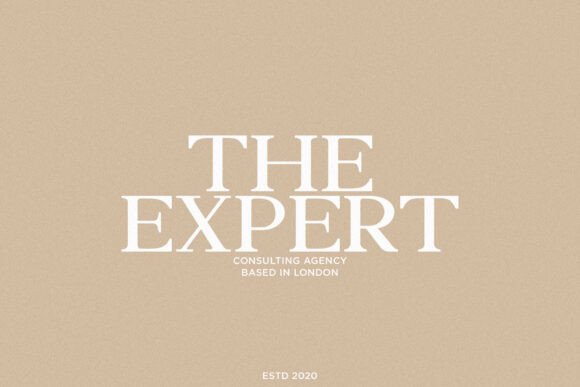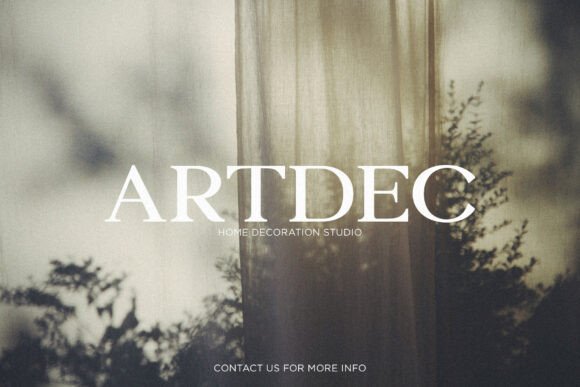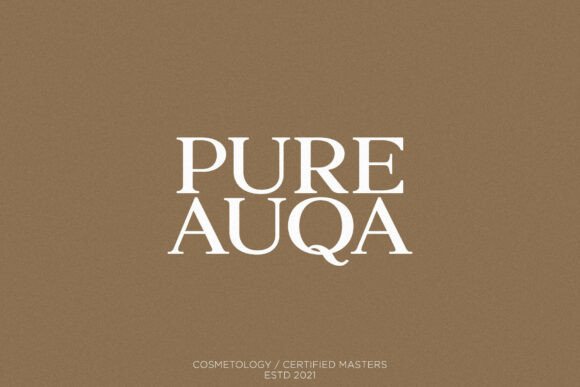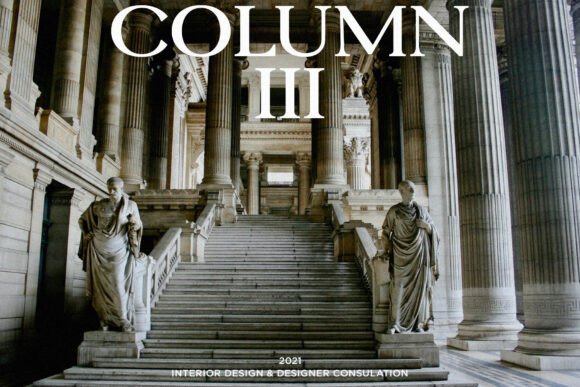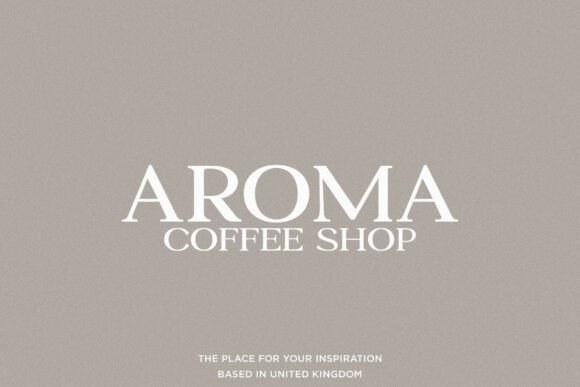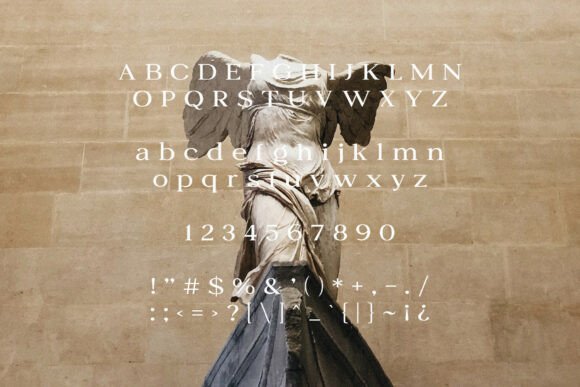
Introducing Epiphany Font: A Timeless Serif Typeface for Luxury Branding and Elegant Designs
In the world of typography, few fonts manage to convey the essence of classic elegance and timeless beauty. Epiphany Font is one such magnificent typeface that embodies the spirit of sophistication and grandeur. With its semi-expanded serif design, generous width, strong yet refined serifs, and tall letterforms, Epiphany creates a powerful sense of luxury and refinement. In this article, we’ll explore the characteristics, uses, and benefits of Epiphany Font, making it a must-have for designers and crafters seeking to elevate their projects.
Design Characteristics of Epiphany Font
Epiphany Font boasts a range of distinctive design characteristics that set it apart from other serif typefaces. Its semi-expanded design provides a sense of generosity and elegance, while the strong serifs add a touch of refinement and sophistication. The tall letterforms contribute to a sense of monumentality, making Epiphany perfect for display purposes. The font’s generous width ensures that each character takes up ample space, creating a sense of grandeur and drama.
One of the most striking features of Epiphany Font is its classic, timeless aesthetic. The font’s design is inspired by traditional serif typefaces, yet it has been carefully crafted to feel modern and fresh. This blend of old and new makes Epiphany an incredibly versatile font, suitable for a wide range of applications.
Uses for Epiphany Font
Epiphany Font is an incredibly versatile typeface, suitable for a variety of design projects. Some of the most popular uses for Epiphany include:
- Luxury Branding: Epiphany’s sophisticated, high-end aesthetic makes it perfect for luxury brands seeking to establish a sense of elegance and refinement.
- Editorial Titles: The font’s classic, timeless design makes it ideal for editorial titles, such as magazine and newspaper headlines.
- Museum Exhibits: Epiphany’s monumental, sophisticated aesthetic makes it well-suited for museum exhibits, academic papers, and other cultural institutions.
- High-End Packaging: The font’s luxurious, refined design makes it perfect for high-end packaging, such as premium cosmetics, jewelry, and fashion brands.
Benefits of Using Epiphany Font
Epiphany Font offers a range of benefits for designers and crafters seeking to elevate their projects. Some of the most significant advantages of using Epiphany include:
- Instant Sophistication: Epiphany’s classic, timeless aesthetic instantly conveys a sense of sophistication and elegance, making it perfect for luxury brands and high-end designs.
- Versatility: The font’s versatile design makes it suitable for a wide range of applications, from editorial titles to high-end packaging.
- Timeless Appeal: Epiphany’s design is carefully crafted to feel timeless, ensuring that your designs will remain fresh and relevant for years to come.
Tips for Using Epiphany Font Effectively
To get the most out of Epiphany Font, here are a few tips for using it effectively:
- Use it sparingly: Epiphany’s luxurious, refined design makes it perfect for display purposes. Use it sparingly to create a sense of drama and emphasis.
- Pair it with contrasting fonts: Epiphany’s classic aesthetic makes it a great font to pair with contrasting fonts, such as sans-serif typefaces or script fonts.
- Experiment with sizes: Epiphany’s versatile design makes it suitable for a range of sizes, from large display headings to smaller body text.
In conclusion, Epiphany Font is a magnificent, semi-expanded serif typeface that exudes classic elegance and timeless architectural beauty. Its generous width, strong yet refined serifs, and tall letterforms create a powerful sense of sophistication and grandeur, making it perfect for luxury branding, editorial titles, museum exhibits, high-end packaging, and any project that requires a display typeface with a rich, monumental, and historically resonant aesthetic.